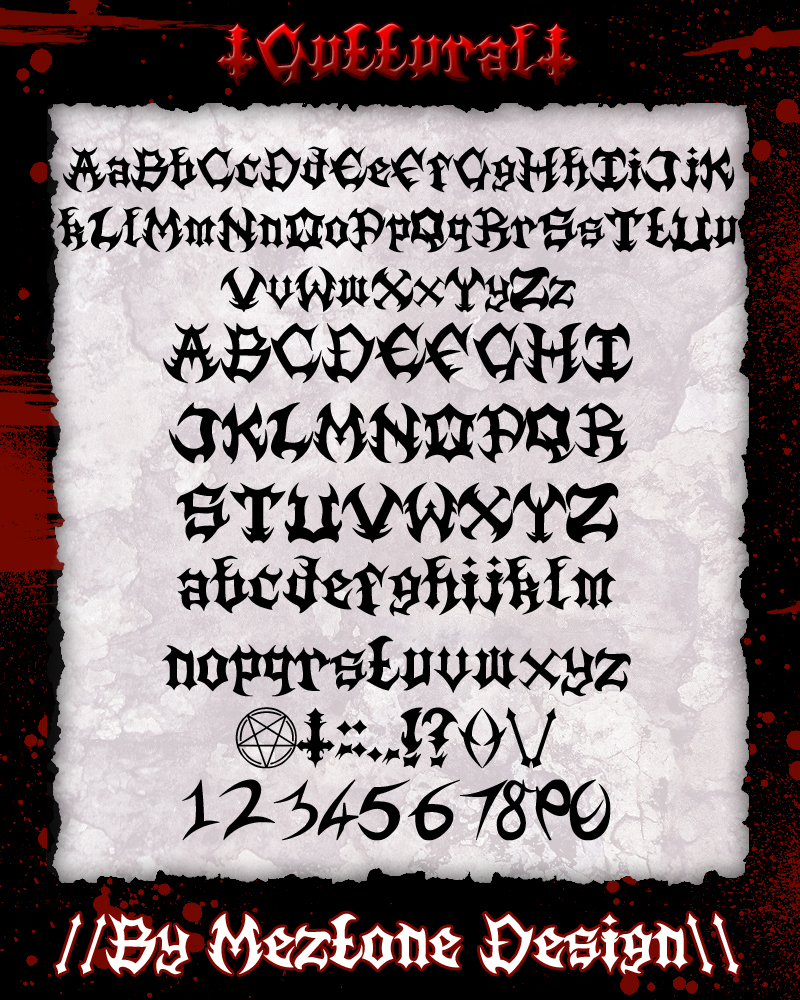
Font name: | Guttural |
Author: | James Stone |
Note by James Stone | |
This font is influenced by the logos of extreme metal bands. I have a brand new professional death metal style font available from http://www.myfonts.com/fonts/subversive/murder-face/ |